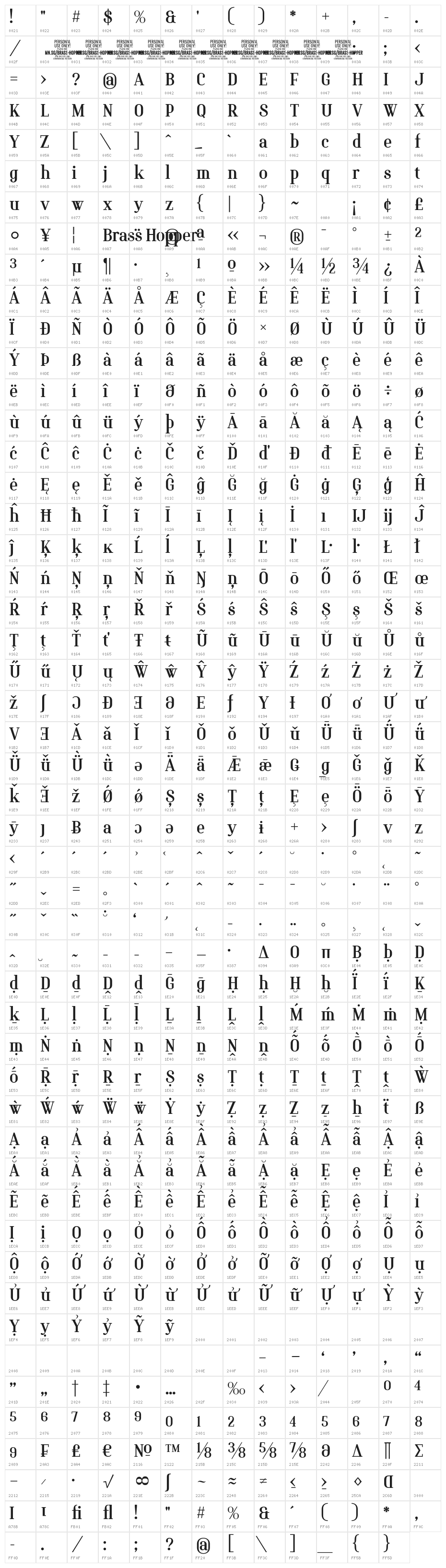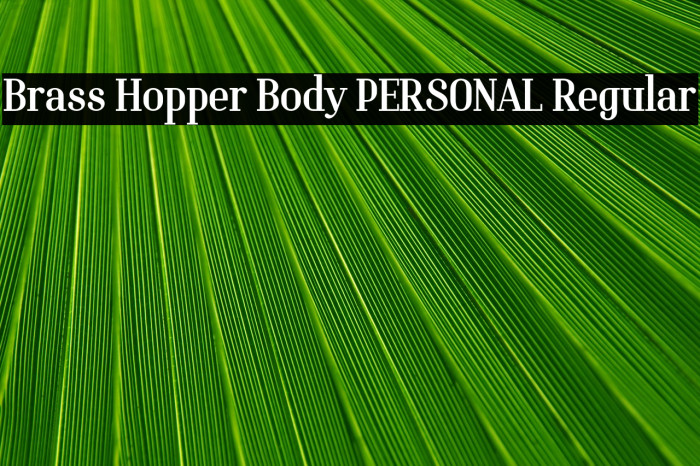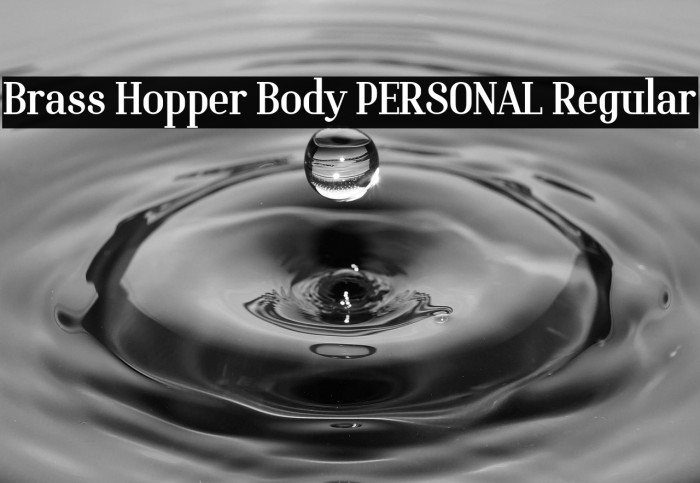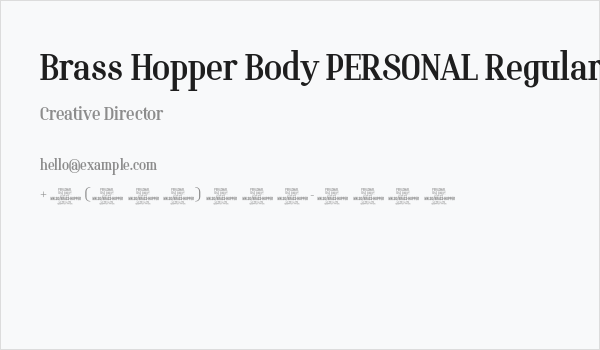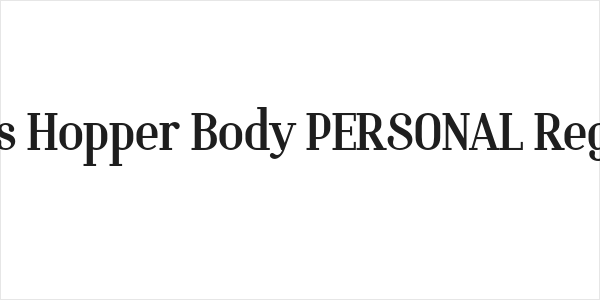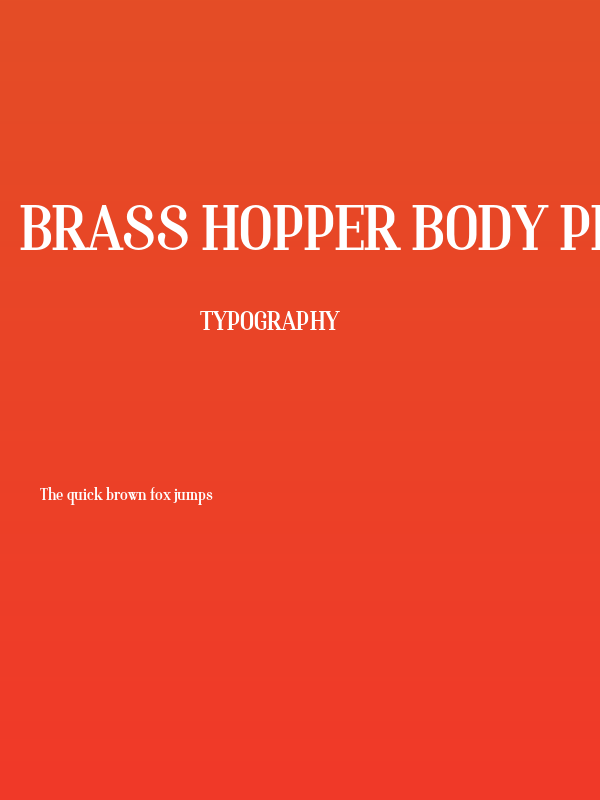
Brass Hopper Body PERSONAL Regular Font
Brass Hopper Body PERSONAL Regular Description
This font features a bold and confident serif style, characterized by its strong vertical strokes and slightly curved serifs. The uppercase letters are particularly striking, with a commanding presence that makes them ideal for headlines and titles. The lowercase letters maintain a consistent weight, offering a harmonious balance with the uppercase set. The numerals are clear and legible, while the special characters add a touch of elegance with their unique design. Overall, this font exudes a classic yet modern vibe, making it versatile for various design applications.
| Use Case | Headlines, Logos, Editorial Design |
| Proposed Projects | Ideal for editorial design, book covers, branding projects, and any application requiring a classic yet modern serif typeface. |